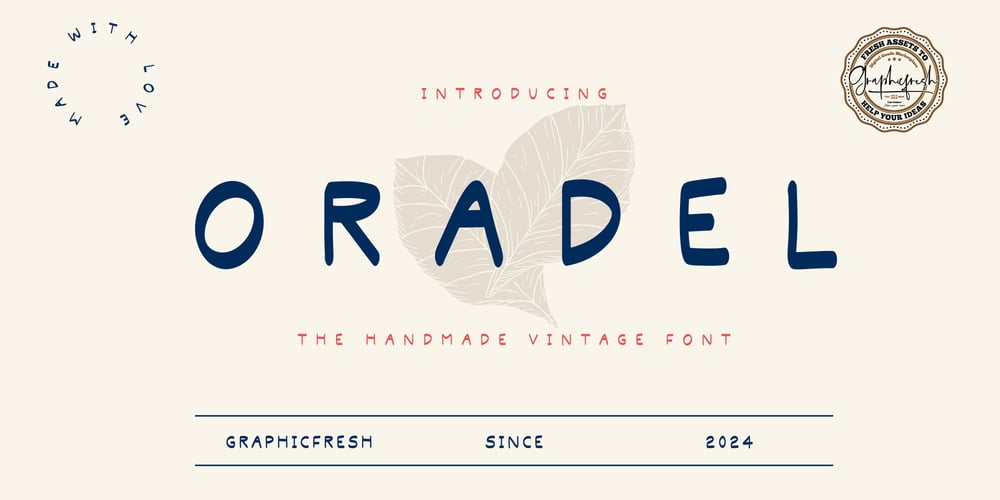
Oradel
Oradel font
Oradel Font Family was designed by Muhammad Husni Haikal and published by Graphicfresh. Oradel contains 1 styles and family package options. Our Vintage Handwritten Sans Display Font offers a unique combination of a clean, sans-serif display style with a touch of handwritten charm. This font is particularly suited for projects that require a vintage and letterpress feel, providing a classic yet approachable look. It’s ideal for eye-catching headlines, signage, and branding that demand a personal and distinctive touch.